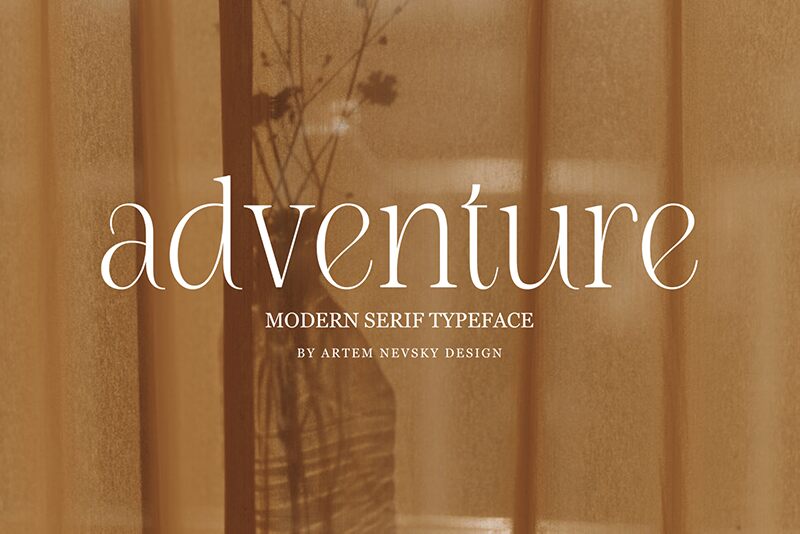
NT Adventure, a creation by Artem Nevsky, is a captivating modern serif font. With its semi-light weight and semi-condensed width, it exudes elegance and sophistication.
Ideal for projects that require a touch of refinement, such as high-end fashion magazines or luxury branding materials. Its versatility extends to editorial designs with its legibility and readability, making it a valuable asset for newspapers or book layouts. The font's extensive language support of over 200 Latin-based languages ensures seamless communication across diverse cultural contexts.
NT Adventure effortlessly adds an air of class to any design endeavor.